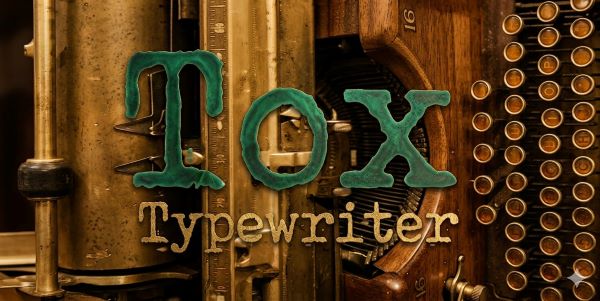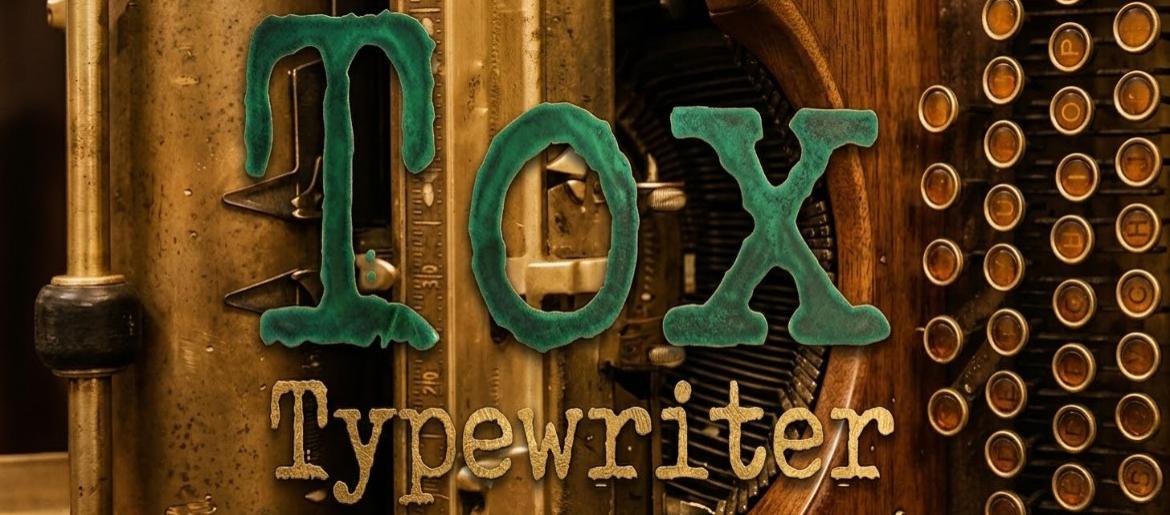
Tox Typewriter Font
Tox Typewriter by Junkohanhero is a characterful distressed typewriter font that wears the wear and tear of decades with quiet dignity. Its lightweight, slightly irregular letterforms carry the unmistakable texture of ink pressed unevenly onto aged paper — every character touched by the imperfections that give analogue type its particular warmth and soul. A natural choice for vintage-style book covers, retro flyers, film titles, editorial design, and any project seeking to evoke the tactile intimacy of writing produced on a real machine. Free for personal use.